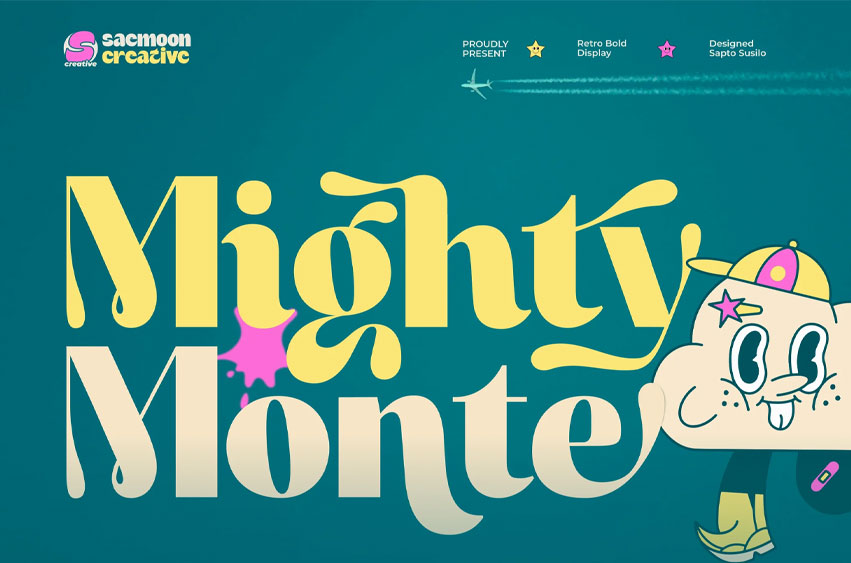
Mighty Monte Font is a playful retro display font with bold shapes, soft curves, and charming quirky details. Designed to bring fun and personality into your work, this font is perfect for creating eye-catching titles and expressive typography.
With included ligatures and alternate characters, Mighty Monte gives you more creative flexibility to create unique and customized text styles. Its nostalgic yet fresh look makes it ideal for posters, branding, packaging, logos, social media graphics, and other creative projects.
Add a cheerful retro touch to your designs with the distinctive charm of Mighty Monte.